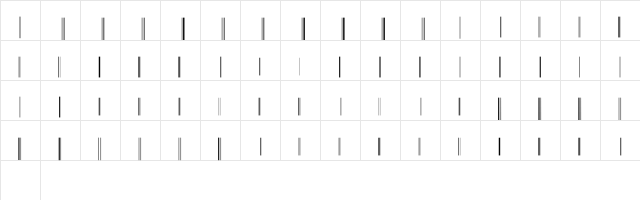
UpcBwrP72xTt Normal
Design Context for UpcBwrP72xTt Typeface
UpcBwrP72xTt is a composed and adaptable typeface that performs quietly and consistently across a wide range of design contexts.